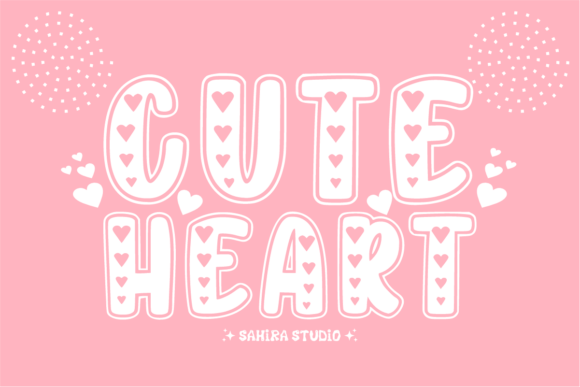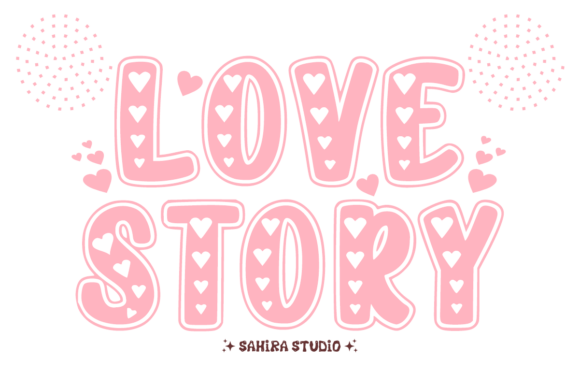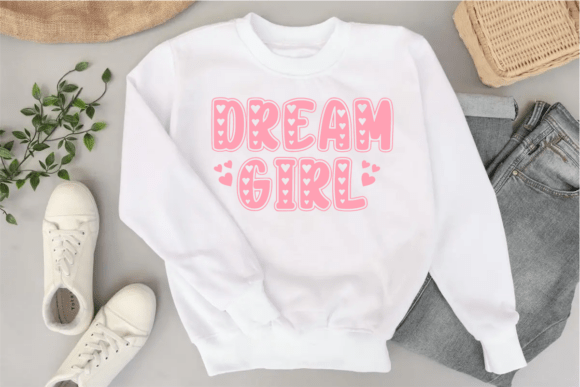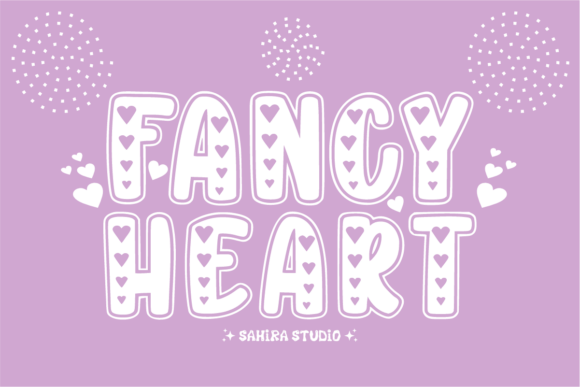
Cute Heart Font
Cute Heart font is a romantic and modern decorative cartoon font consisting exclusively of uppercase letters.
Each character is cute, romantic, and sweet, making it instantly recognizable. Whatever the theme, this font will be a wonderful addition to your font library, potentially enhancing any creation.
With chunky letters filled with adorable heart cutouts, this playful and charming typeface is ideal for Valentine’s Day projects, baby shower invites, kids’ designs, greeting cards, and social media posts. The hand-drawn style and bubbly feel give it a warm, affectionate vibe that resonates with all things sweet and tender. Great for crafting, scrapbooking, and girly branding that needs a sprinkle of love!